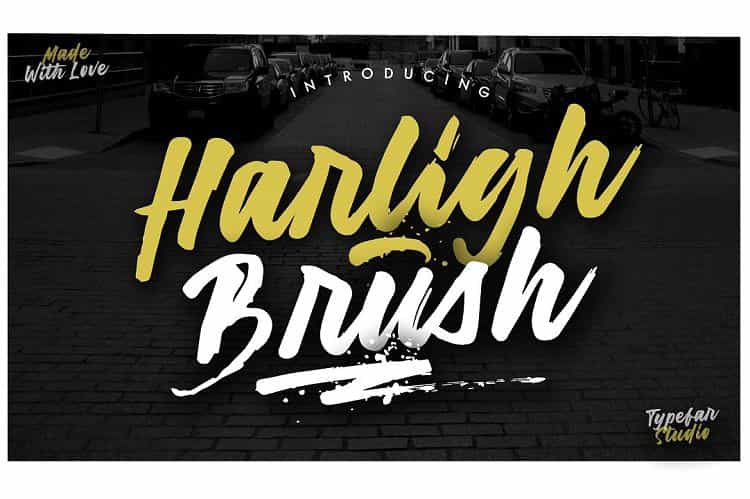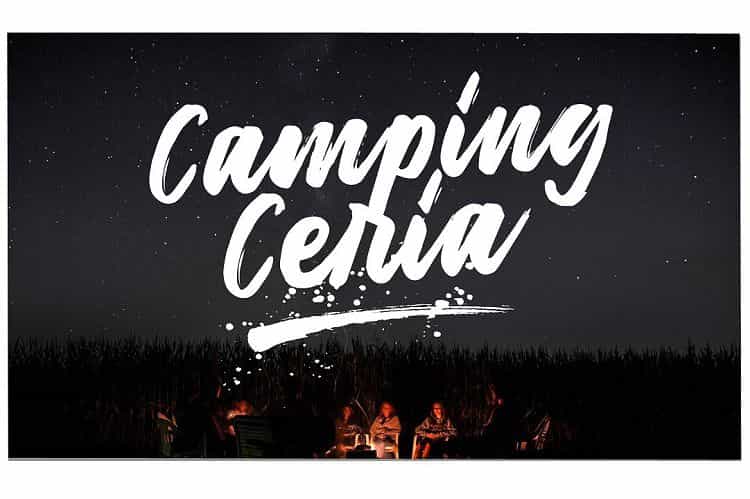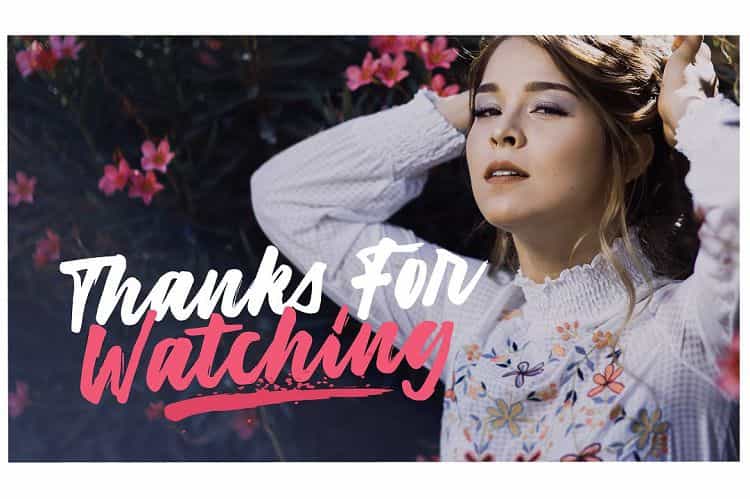
Introducing Harligh Font. It is made and spread by Typefar. Harligh – This font is the most suitable for your design project that has a concept of fun, brave and sporty. This can also be used in the design of a logotype, header website, make some lettering as a quote and t-shirt design etc.